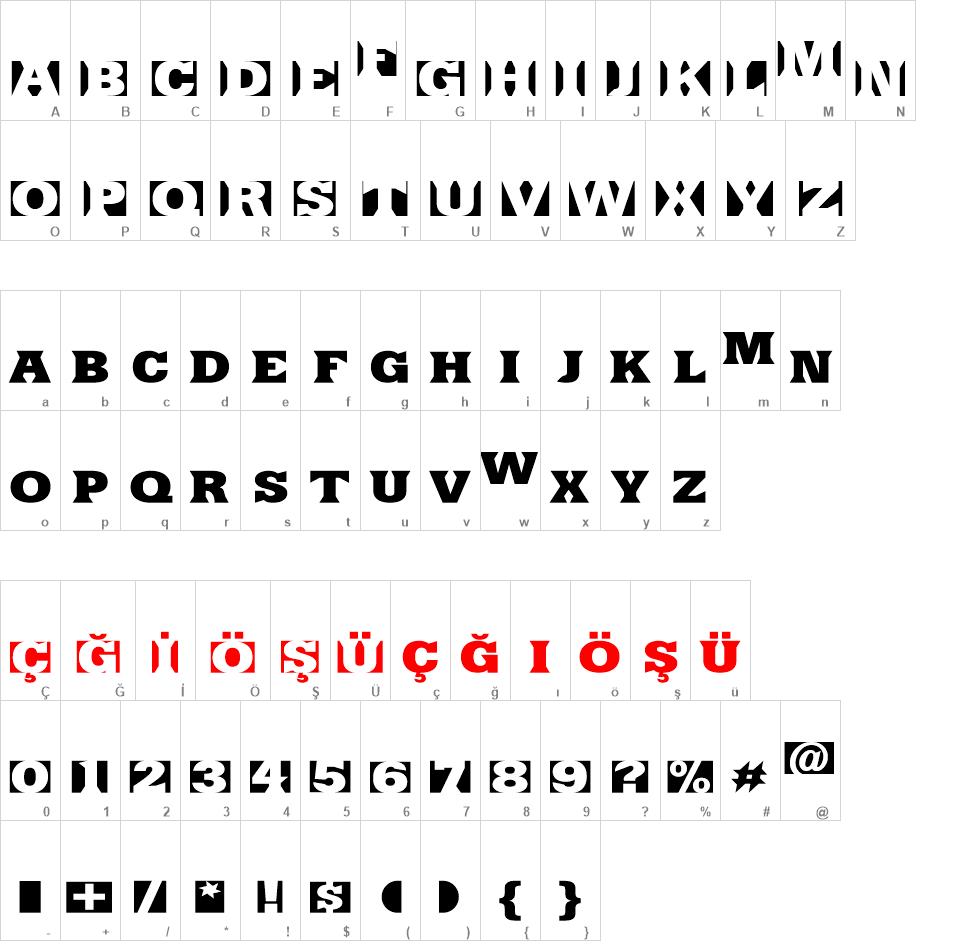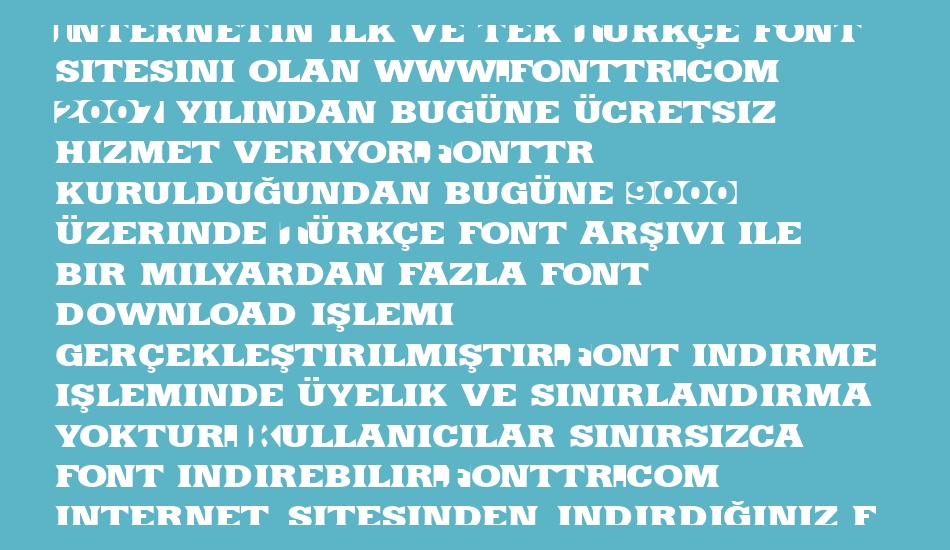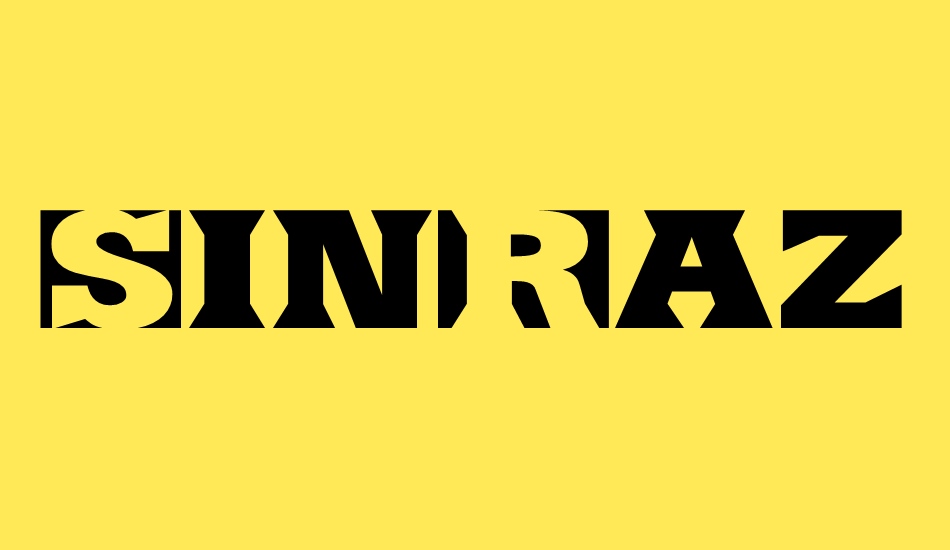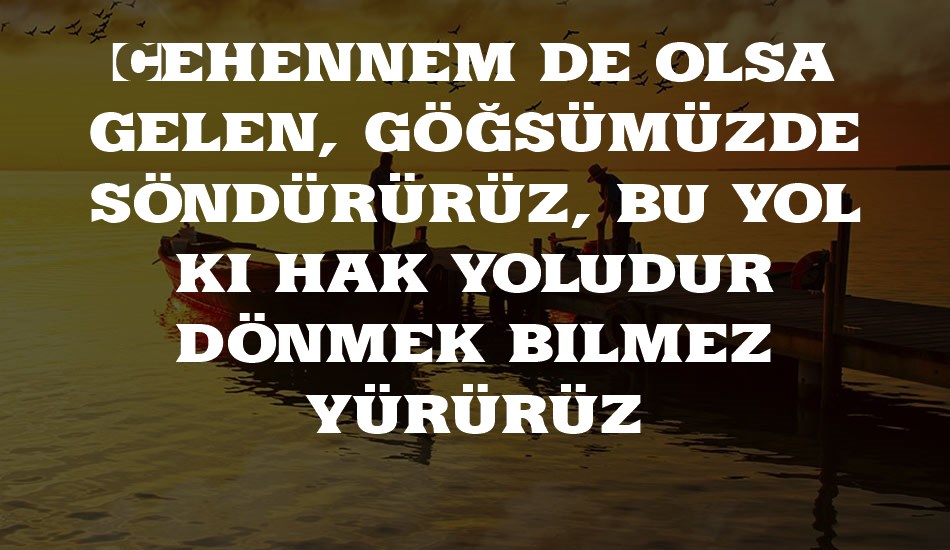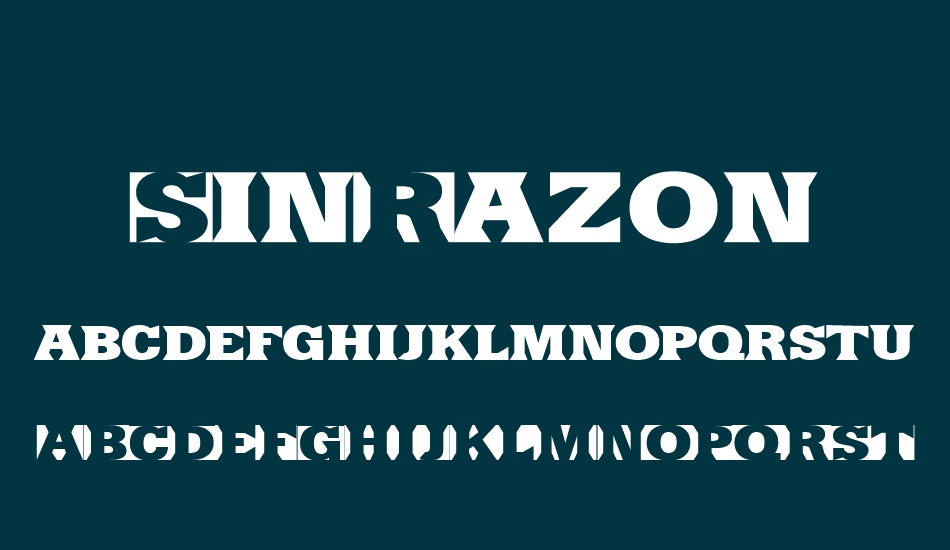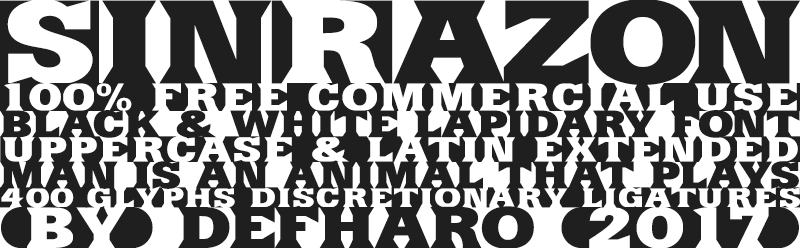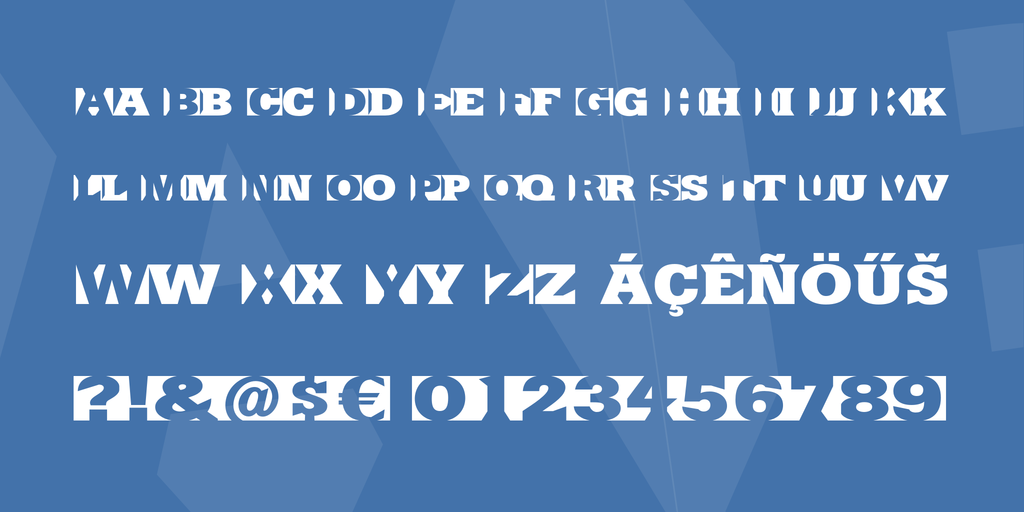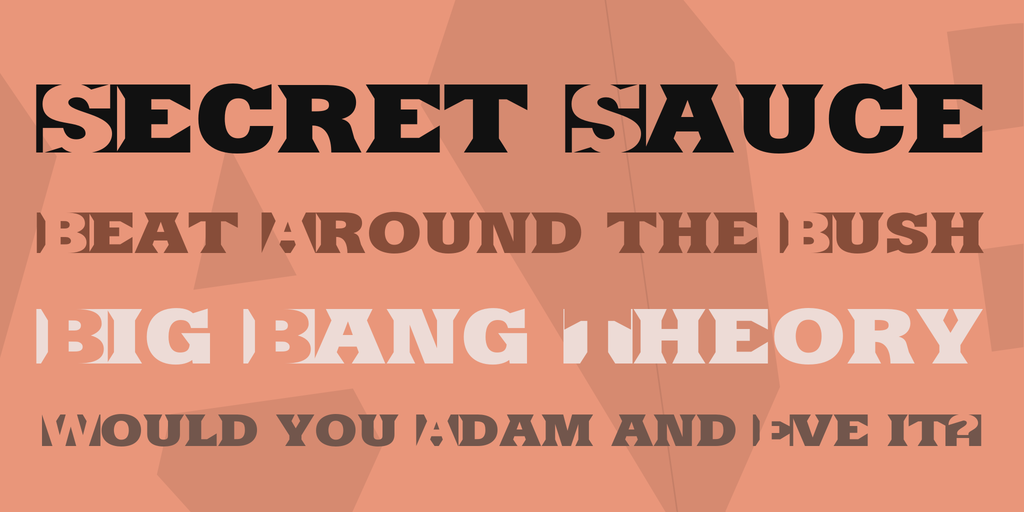
SinRazon font
SinRazon Font
SinRazon is a thick and lapidary typography in negative and positive.
- Includes Latin Extended-A and Discretionary Ligatures.
SinRazón - Unreasonable - Déraisonnable
The reason for this free typography is my protest and response to all those gratuitous unreasonable causes that we sometimes encounter.